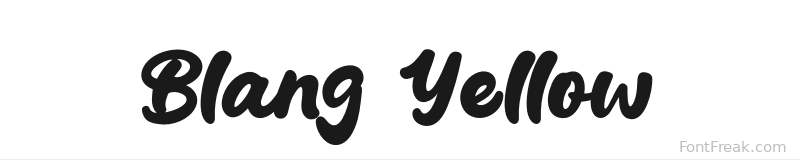
Blang Yellow
Blang Yellow is a captivating display font designed by Syaf Rizal, falling under the category of decorative typefaces. This font features an eye-catching, playful style characterized by its bold strokes and dynamic curves. The stroke weight varies, providing a sense of depth and movement, while the ample spacing between letters ensures excellent legibility. The design incorporates whimsical elements that give it a unique personality, making it perfect for various creative applications.
This font shines in a variety of contexts. It is particularly well-suited for wedding invitations, where its charming aesthetic can add a touch of elegance and joy. Additionally, Blang Yellow works wonderfully for movie posters, where its bold presence can draw attention and evoke emotion. Restaurant menus will benefit from its distinctive flair, making dishes stand out and enticing patrons to explore the offerings. Content creators will find this font effective for social media graphics, adding a vibrant touch to posts that aim to engage audiences. Furthermore, graphic designers can utilize Blang Yellow in branding projects, creating memorable logos that resonate with their target demographics.
The target audience for Blang Yellow includes graphic designers, small business owners, and content creators seeking to elevate their visual communication. This font offers versatility, enabling users to incorporate it into various projects while maintaining a playful yet professional tone.
What sets Blang Yellow apart is its ability to blend fun with functionality. The unique design elements not only catch the eye but also convey a sense of creativity and originality. Whether you’re working on a personal project or a client’s branding, the Blang Yellow font free download allows you to easily access this striking typeface, making it a valuable addition to any designer's toolkit.